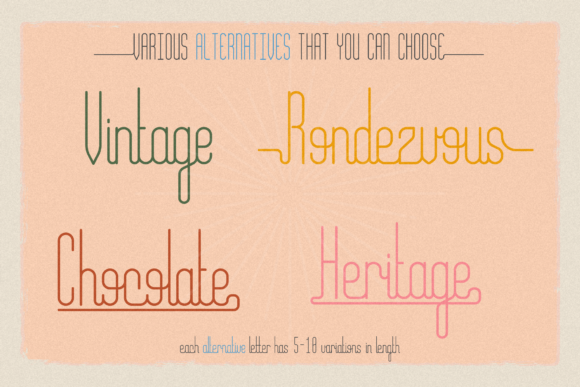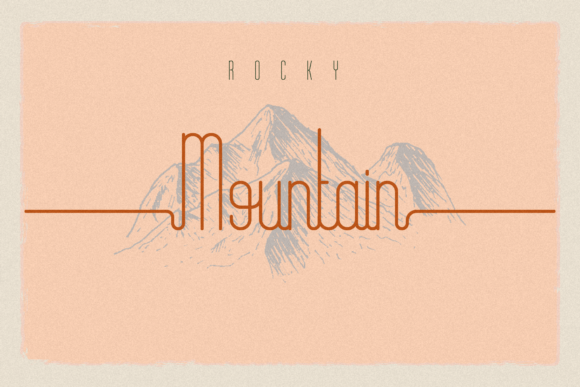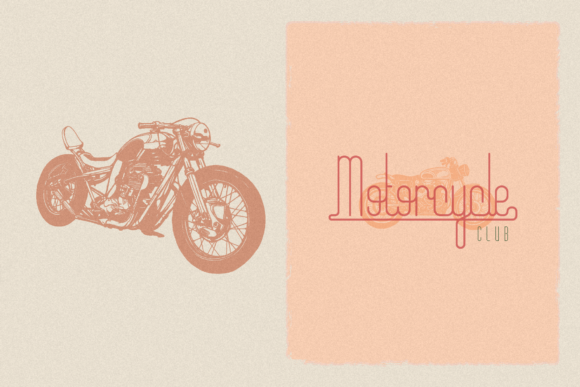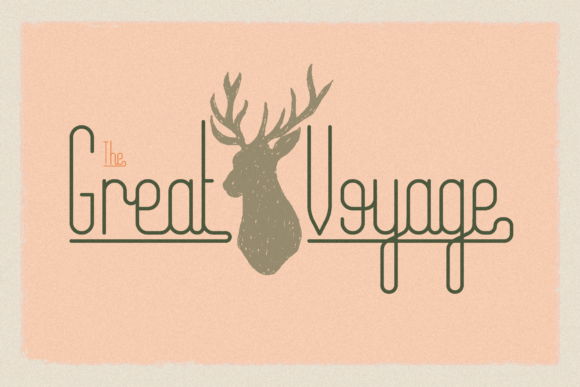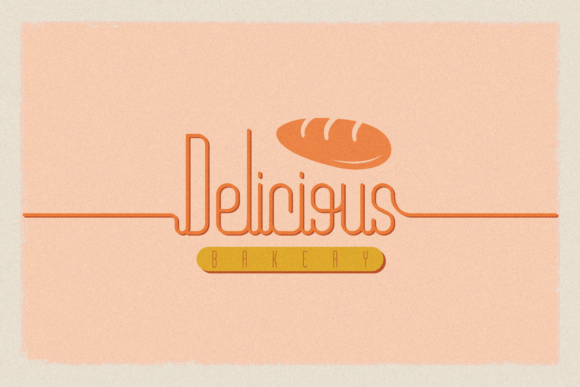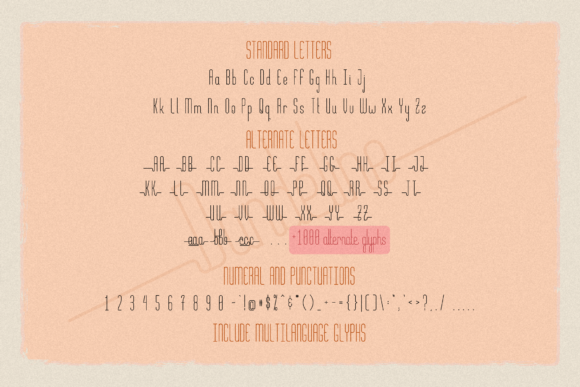
Dandeline Font: Add a Vintage Twist to Your Designs
Dandeline is a sweet and fun handwritten font with a cool twist. It’s the perfect font for adding a vintage vibe to any design project! In this article, we’ll dive into the world of Dandeline font, exploring its features, uses, and benefits for designers and crafters.
What is Dandeline Font?
Dandeline font is a unique and charming handwritten font that combines the elegance of traditional typography with a playful, modern twist. Its distinctive characters and whimsical flair make it an excellent choice for designers looking to add a touch of personality to their work.
Key Features of Dandeline Font
- Handwritten style: Dandeline font boasts a beautiful, handwritten style that adds a personal touch to any design.
- Vintage vibe: The font’s classic feel and elegant lines evoke a sense of nostalgia, making it perfect for projects that require a retro aesthetic.
- Cool twist: Dandeline’s unique twist sets it apart from other handwritten fonts, making it a great choice for designers looking to stand out.
- Versatile: This font is suitable for a wide range of design projects, from branding and packaging to invitations and crafts.
Uses of Dandeline Font
Dandeline font is an incredibly versatile font that can be used in various design projects, including:
- Branding and logos: Add a touch of personality to your brand’s identity with Dandeline’s unique and memorable font.
- Packaging design: Use Dandeline font to create eye-catching packaging that stands out on store shelves.
- Invitations and stationery: Add a vintage touch to your invitations, greeting cards, and other stationery with Dandeline’s elegant font.
- Crafts and DIY projects: Dandeline font is perfect for crafters who want to add a personal touch to their projects, such as handmade cards, scrapbooking, and iron-on designs.
Benefits of Using Dandeline Font
So, why choose Dandeline font for your design projects? Here are some benefits:
- Easy to read: Despite its handwritten style, Dandeline font is surprisingly easy to read, making it perfect for body text and headings.
- Unique and memorable: Dandeline font’s distinctive characters and twist make it a great choice for designers looking to create a lasting impression.
- Time-saving: With Dandeline font, you can create stunning designs in no time, thanks to its versatility and ease of use.
Tips for Using Dandeline Font
To get the most out of Dandeline font, here are some tips:
- Pair with complementary fonts: Combine Dandeline font with other fonts that complement its vintage vibe, such as serif or script fonts.
- Experiment with colors: Dandeline font looks great in a range of colors, from bold and bright to soft and pastel.
- Use it for headings and titles: Dandeline font is perfect for headings and titles, where its unique characters and twist can really shine.
Dandeline font is a sweet and fun handwritten font with a cool twist that’s perfect for adding a vintage vibe to any design project. With its unique features, versatility, and ease of use, it’s an excellent choice for designers and crafters looking to create stunning designs. Whether you’re working on branding, packaging, invitations, or crafts, Dandeline font is sure to impress.